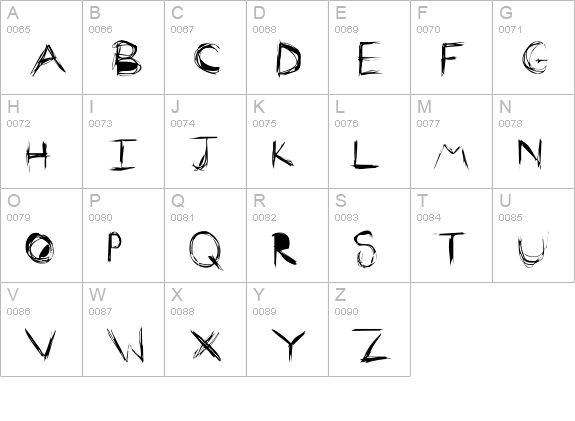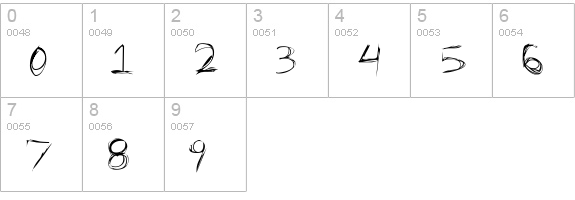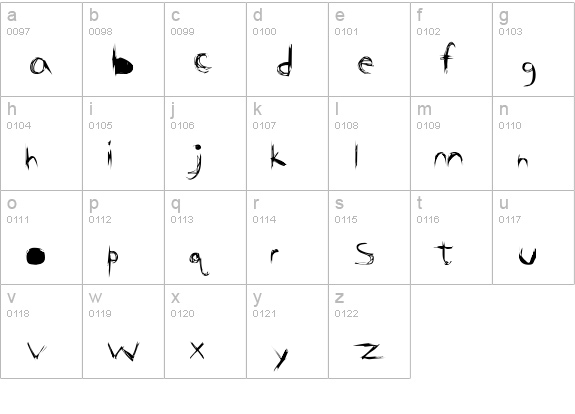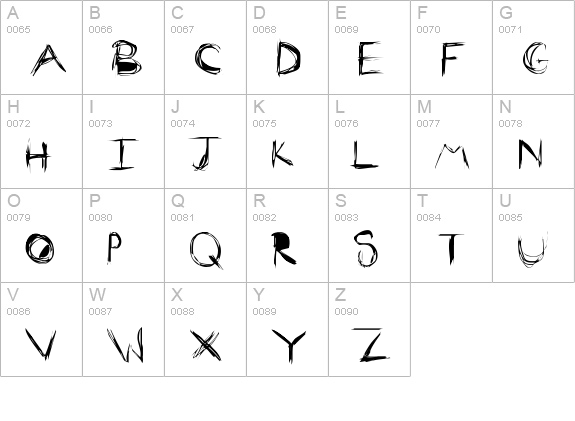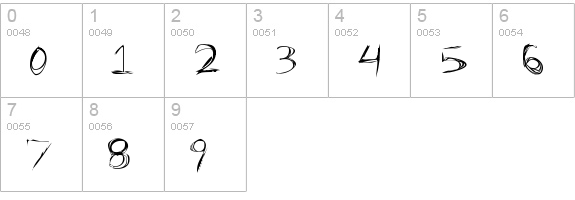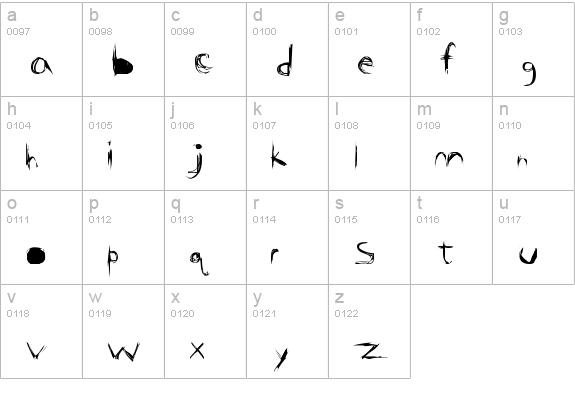
Family Bonding Font Details
Introducing Family Bonding font, a heartwarming typeface designed to evoke feelings of love and togetherness. This charming and versatile font is perfect for adding a touch of warmth and familiarity to your designs. With its playful yet elegant style, Family Bonding is sure to bring a sense of closeness and connection to any project. Best of all, Family Bonding font is available for free download at FontsMarket.com. Whether you're working on a family-themed project, a heartfelt greeting card, or a cozy branding design, this font is the perfect choice to help you convey the importance of family and relationships. Download Family Bonding font today and add a touch of love and unity to your creations.